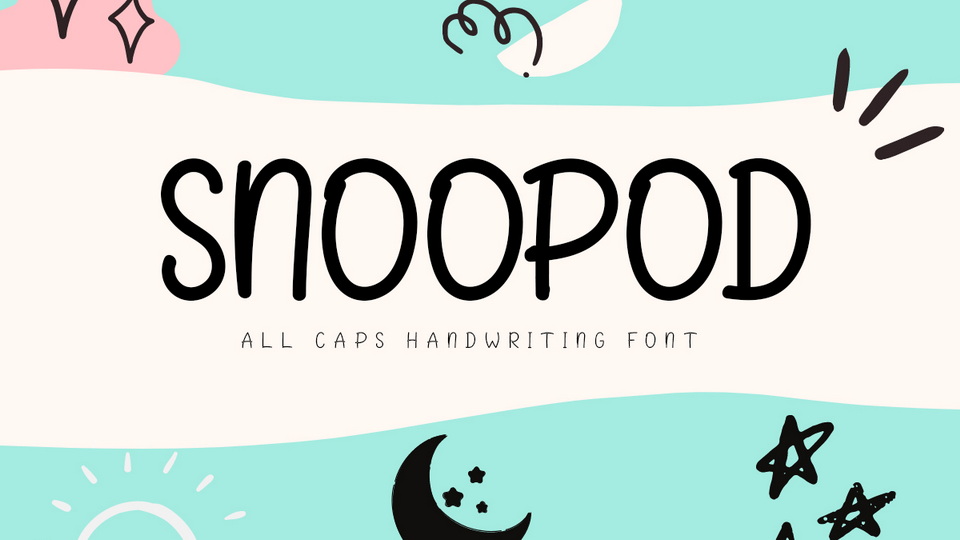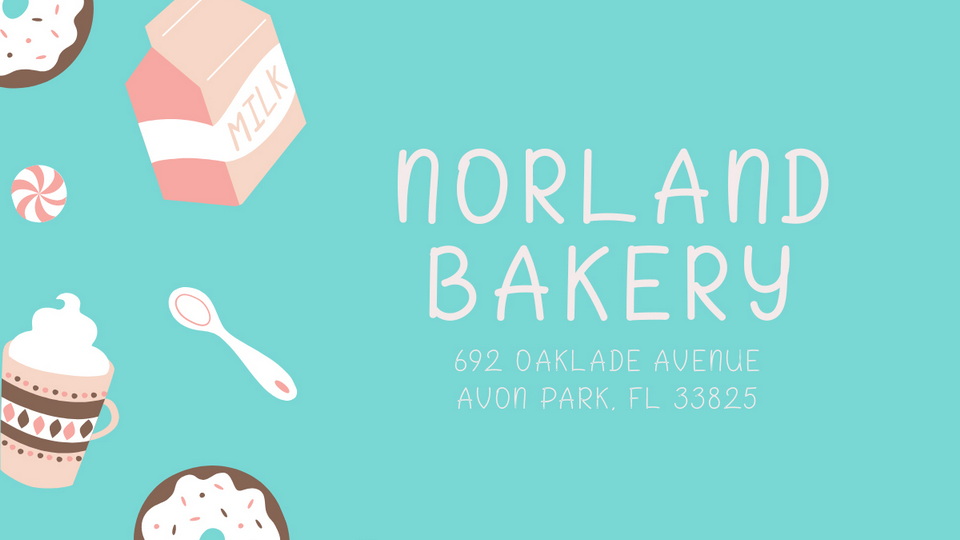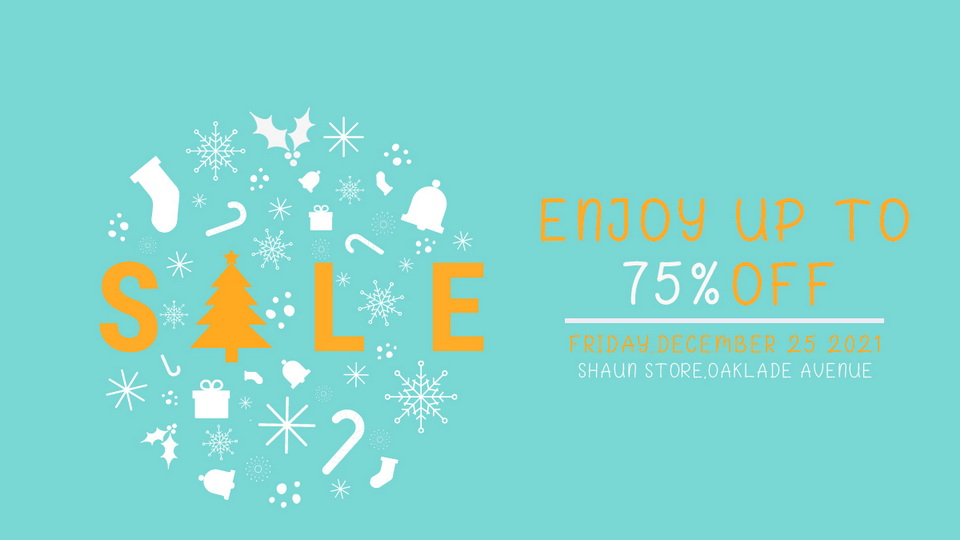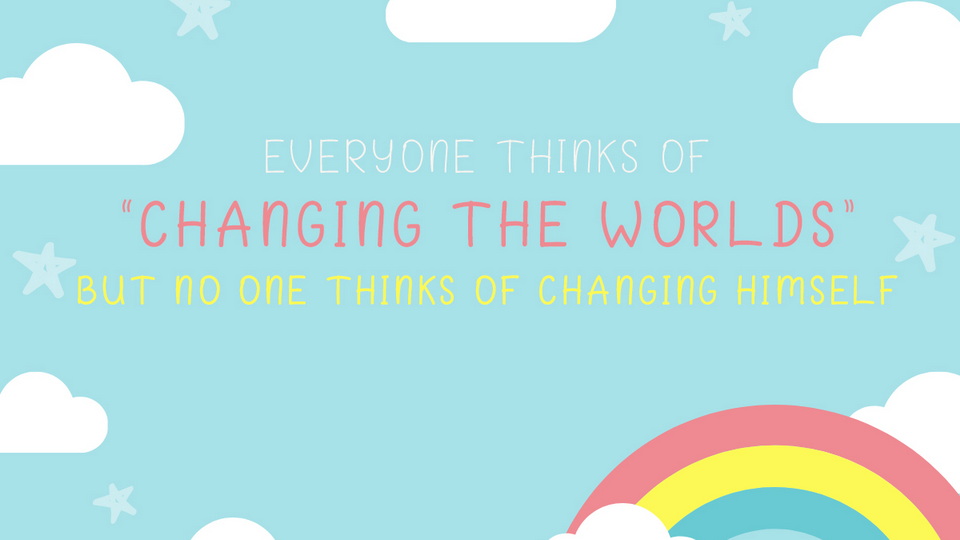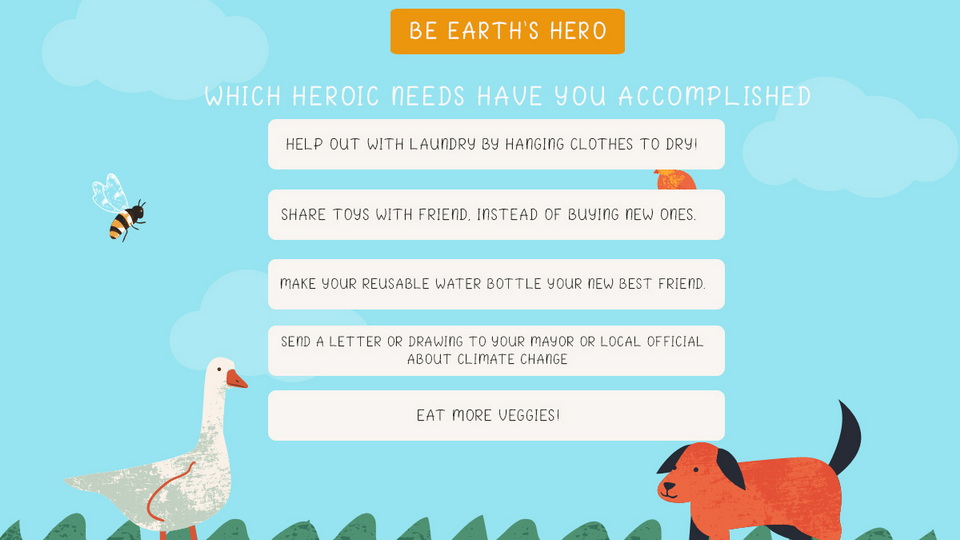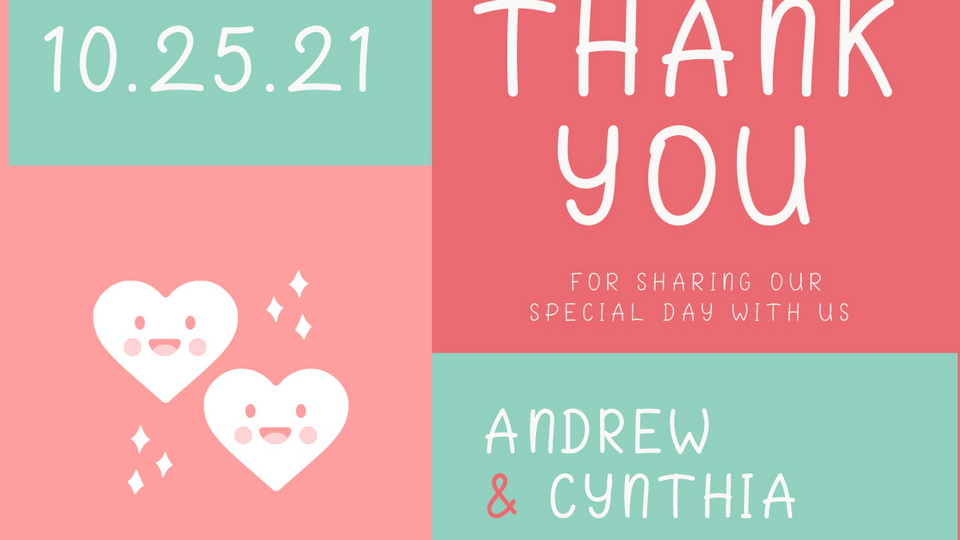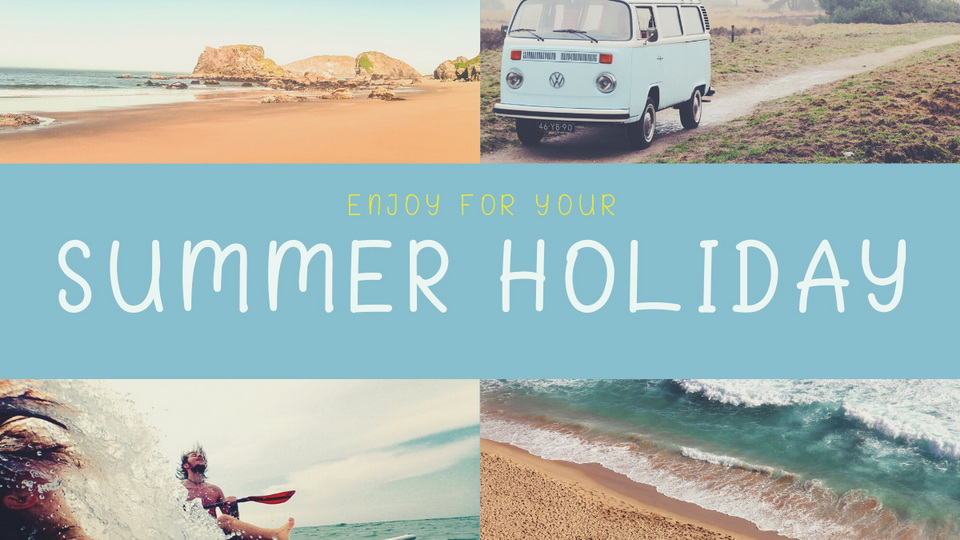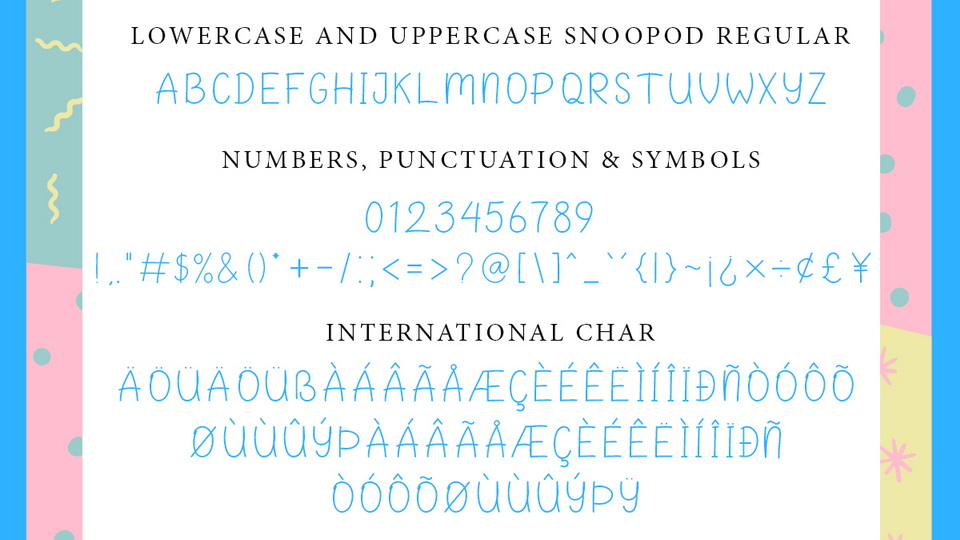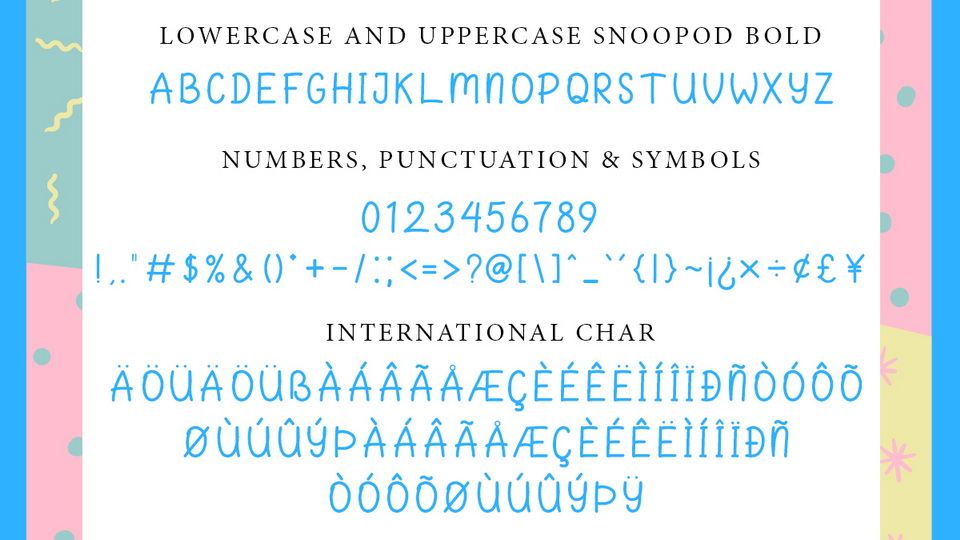
Snoopod is a all caps font for display, this is cute and simple lettered handwritten font that can be used for all ink quotes or teaching material! Its authentic look will add a personal and realistic feel to your designs.